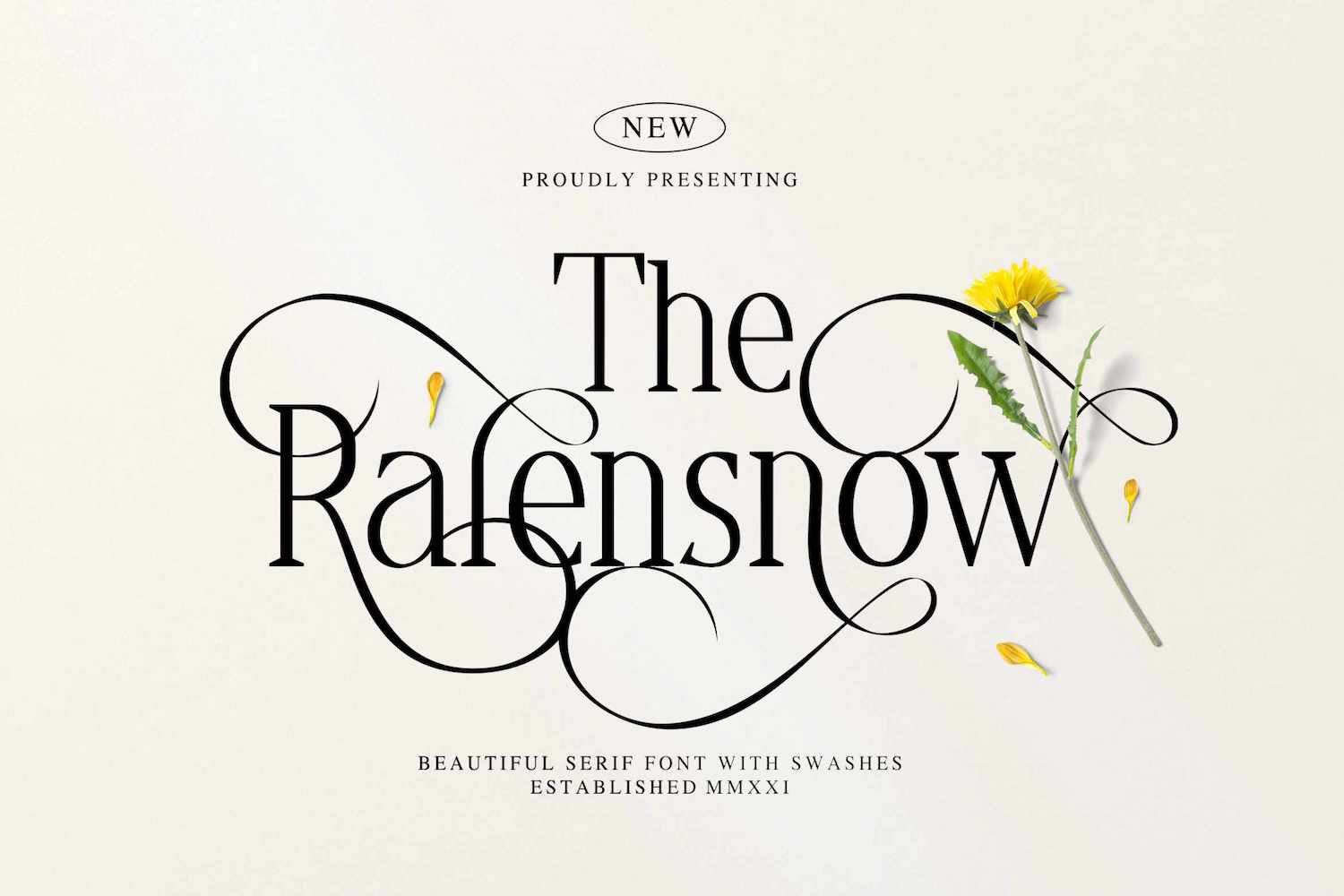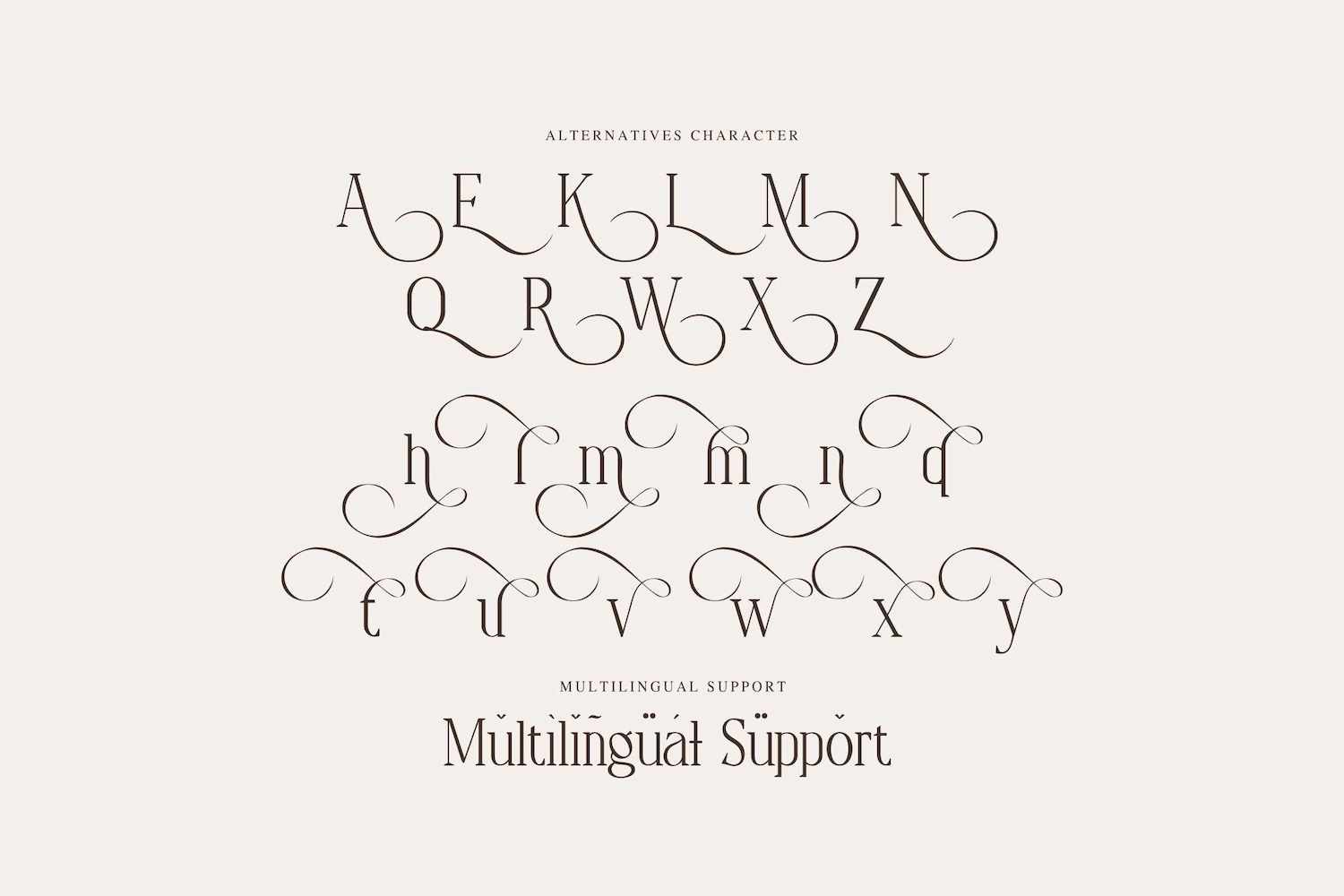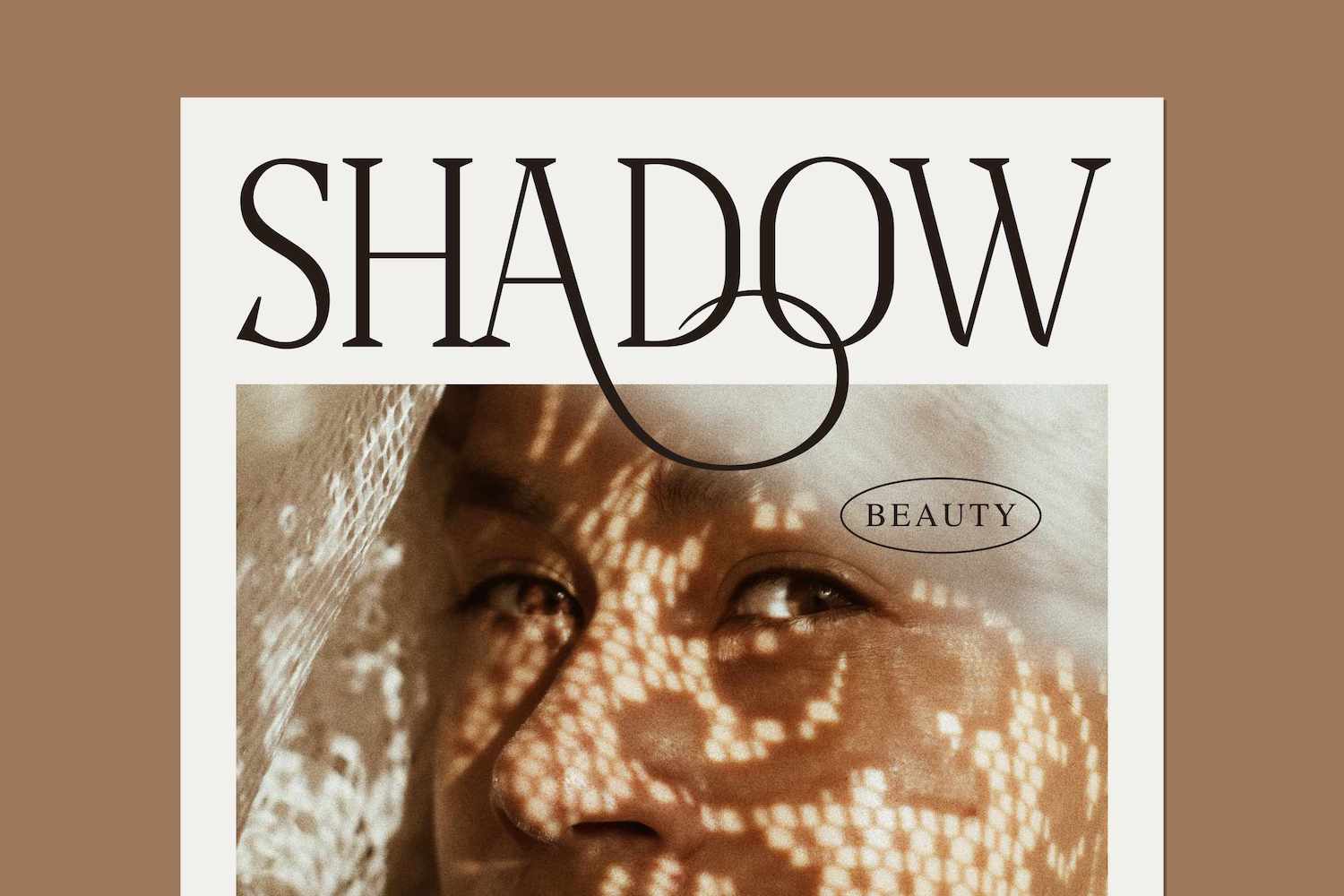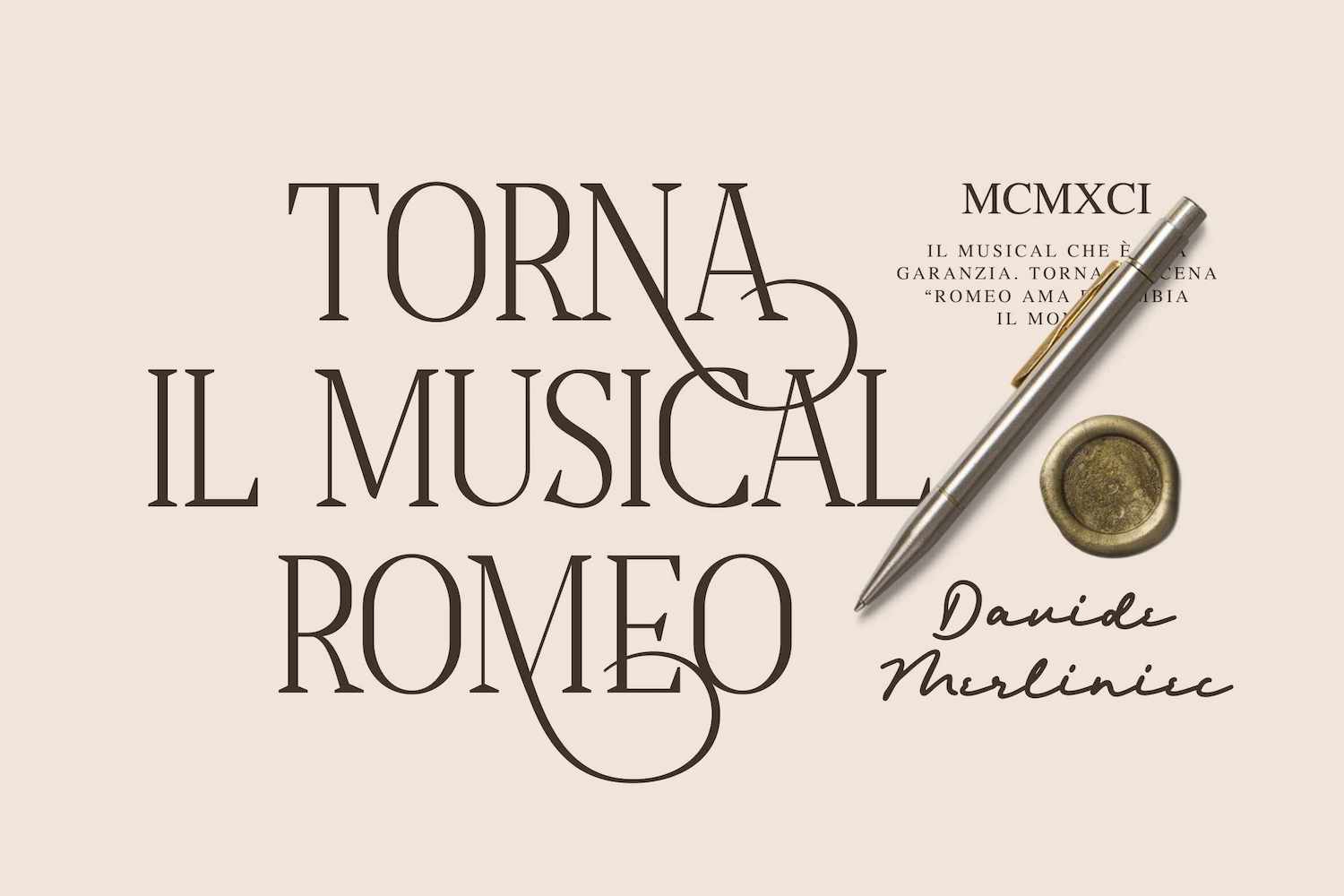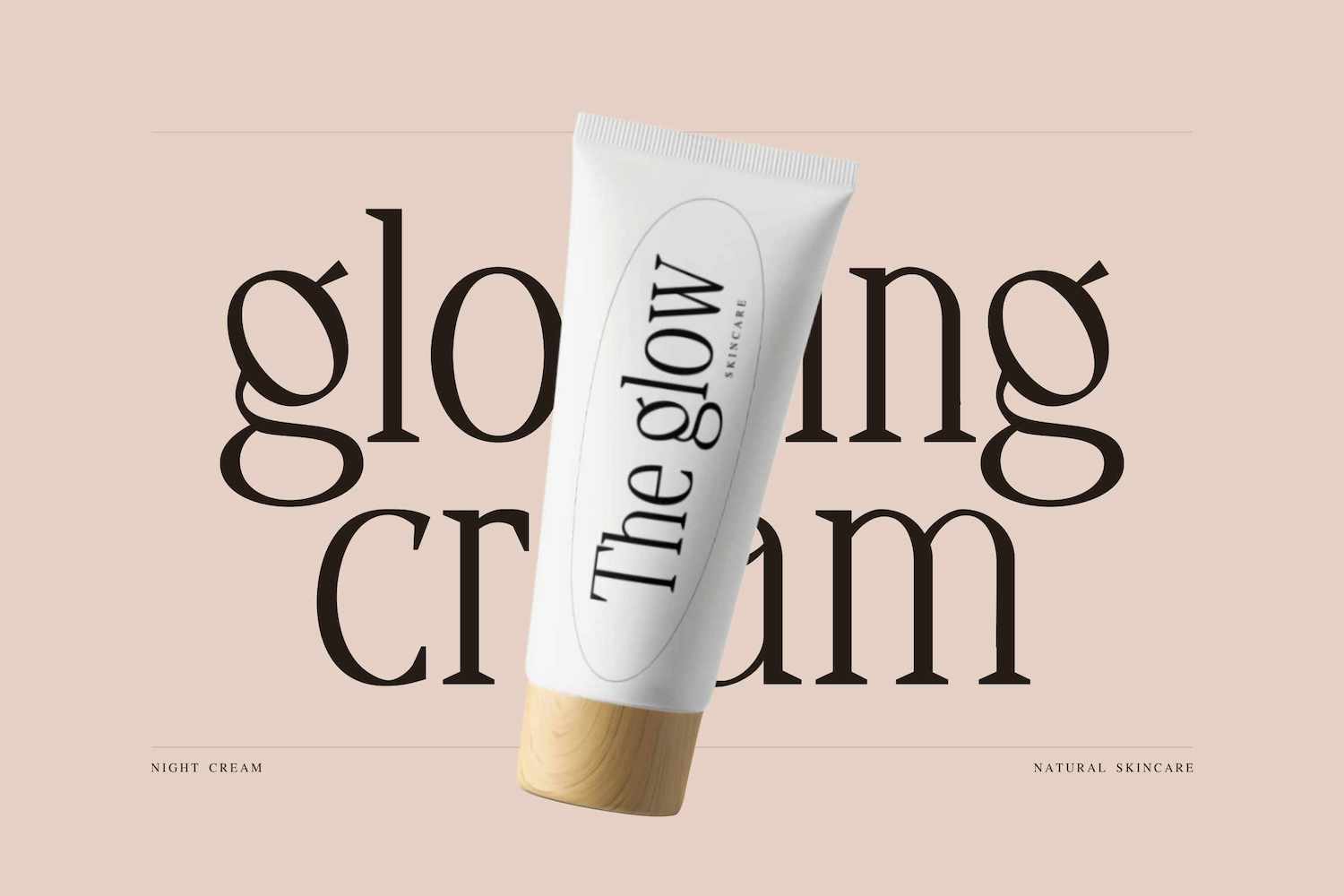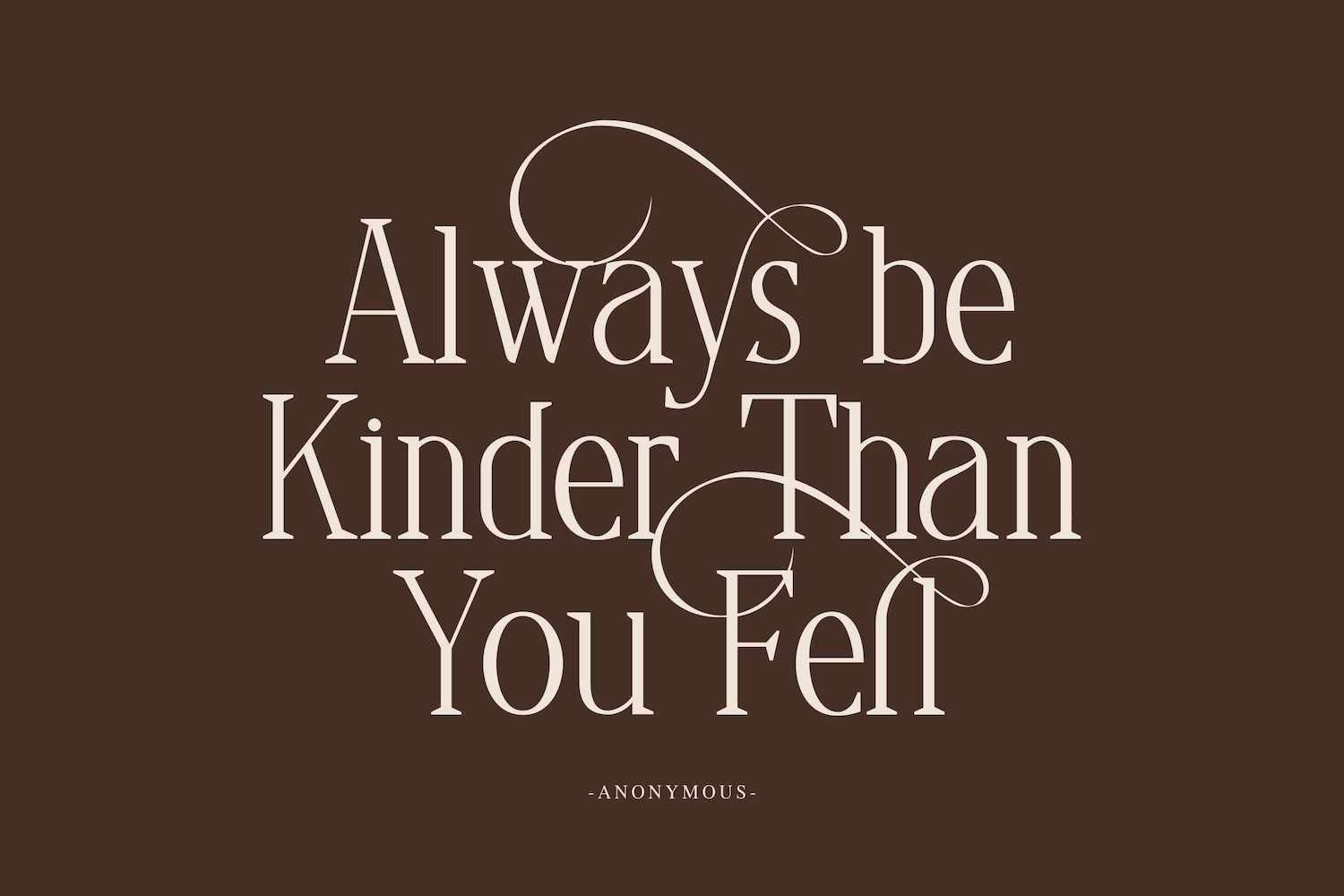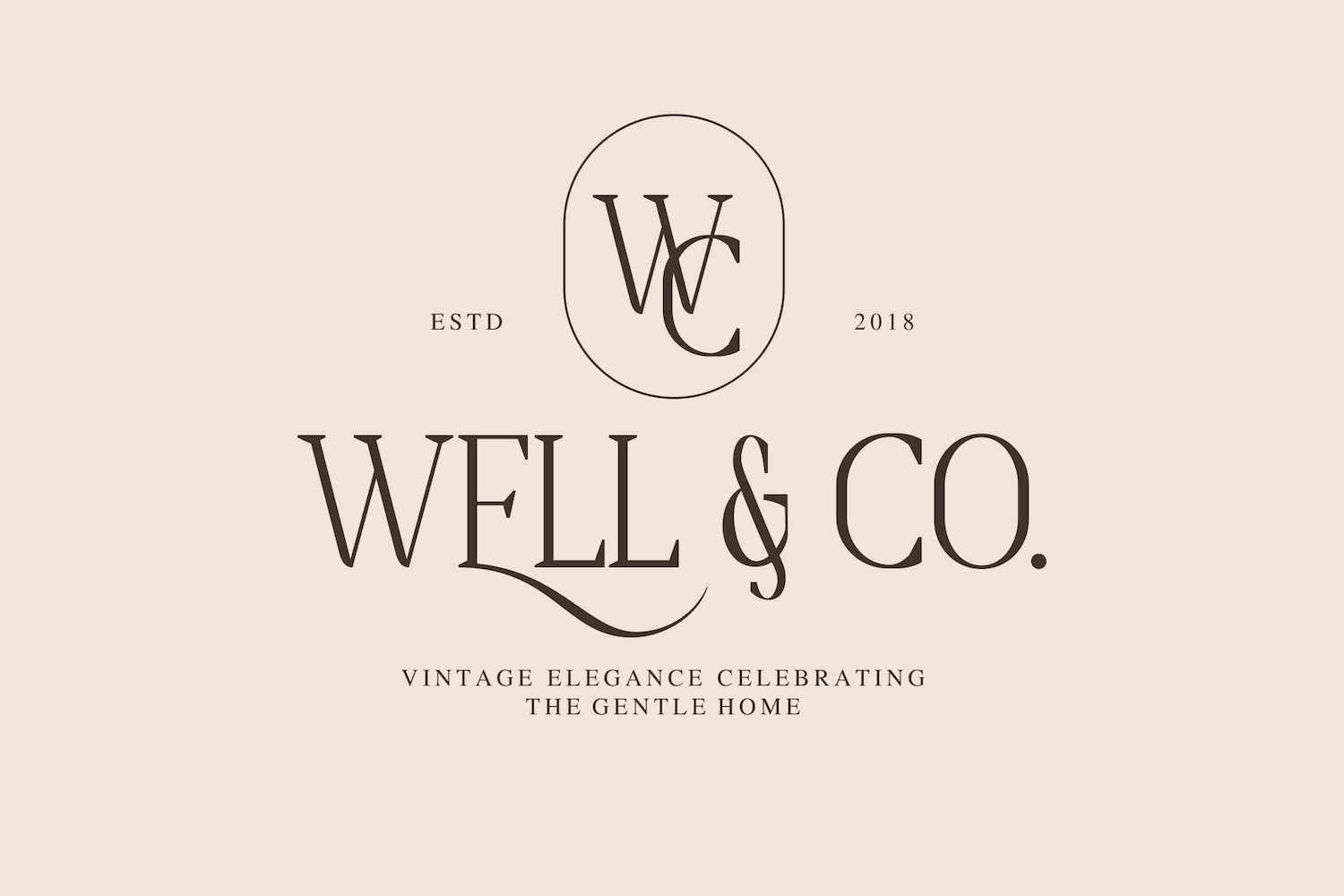
Ralensnow is a timeless serif font that elegantly combines classic sophistication with modern swash details. Designed for high-end branding, editorial layouts, and formal invitations, Ralensnow features delicate curves and thoughtfully placed stylistic alternates that evoke both tradition and elegance.
With its beautiful balance between legibility and artistic flair, Ralensnow is ideal for logos, wedding stationery, magazine headers, and luxury product packaging. Complete with uppercase, lowercase, multilingual support, and a rich set of swashes, this font brings refined charm to any design.